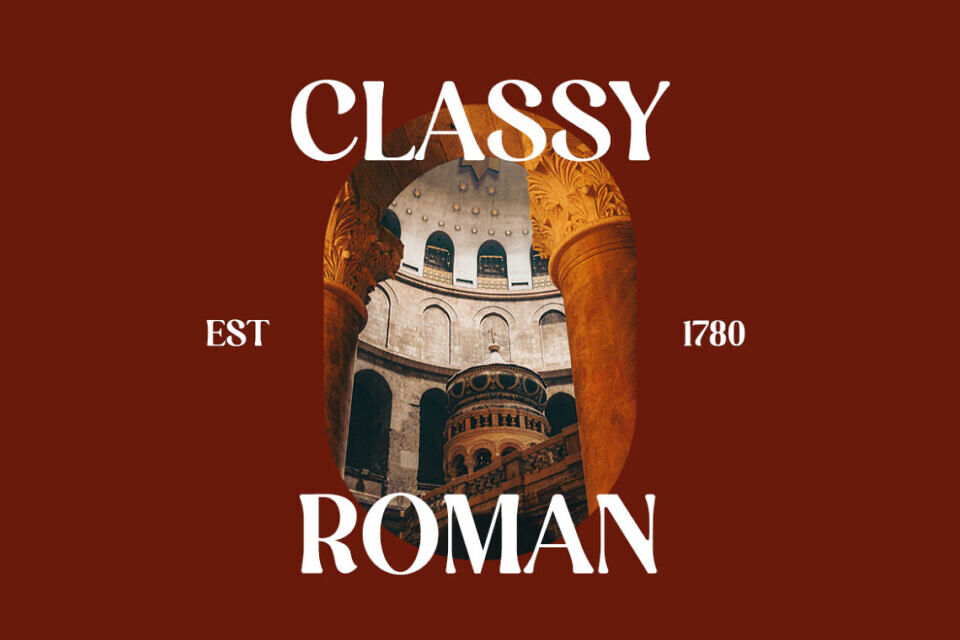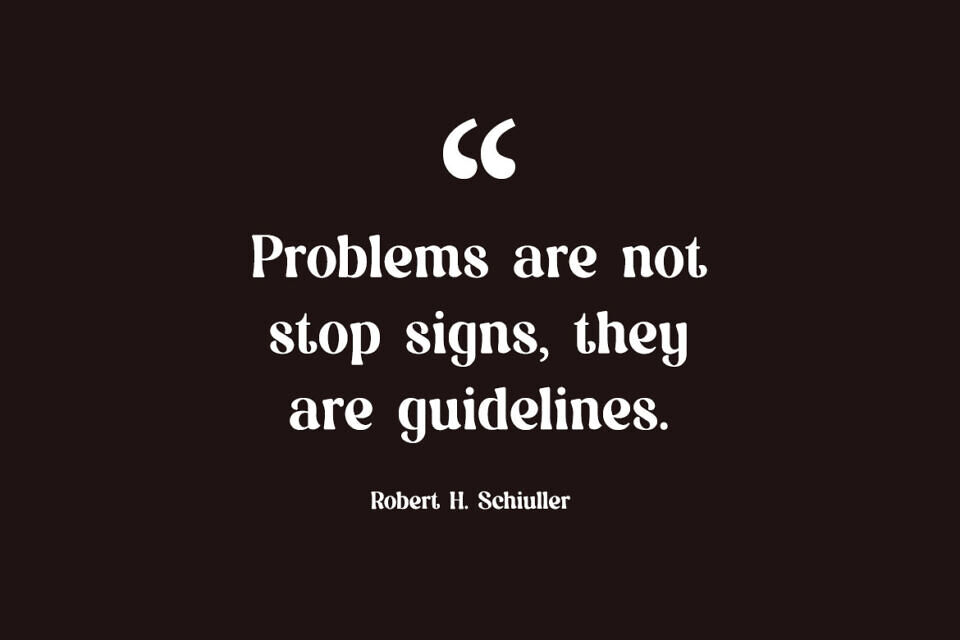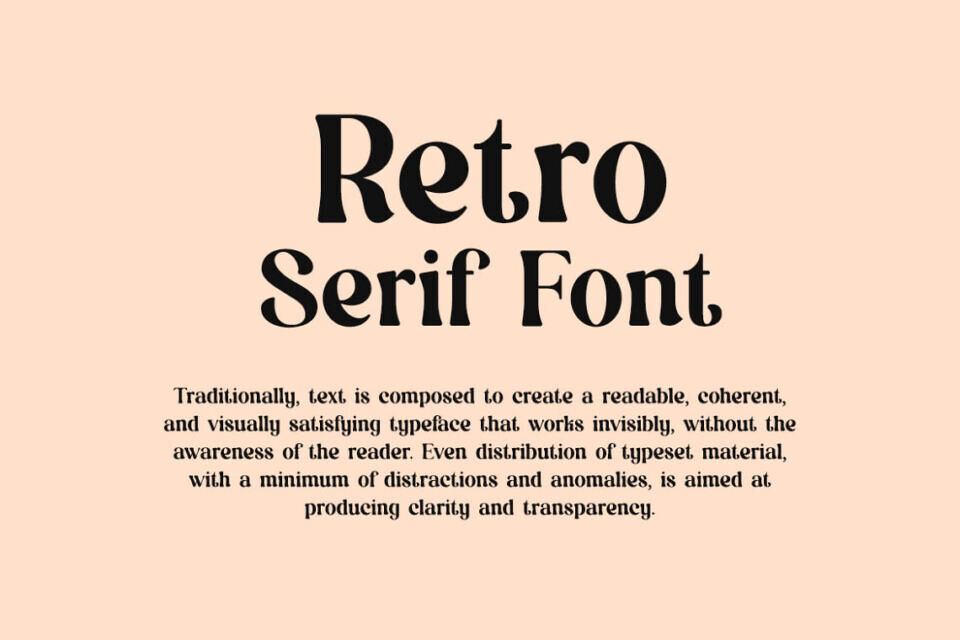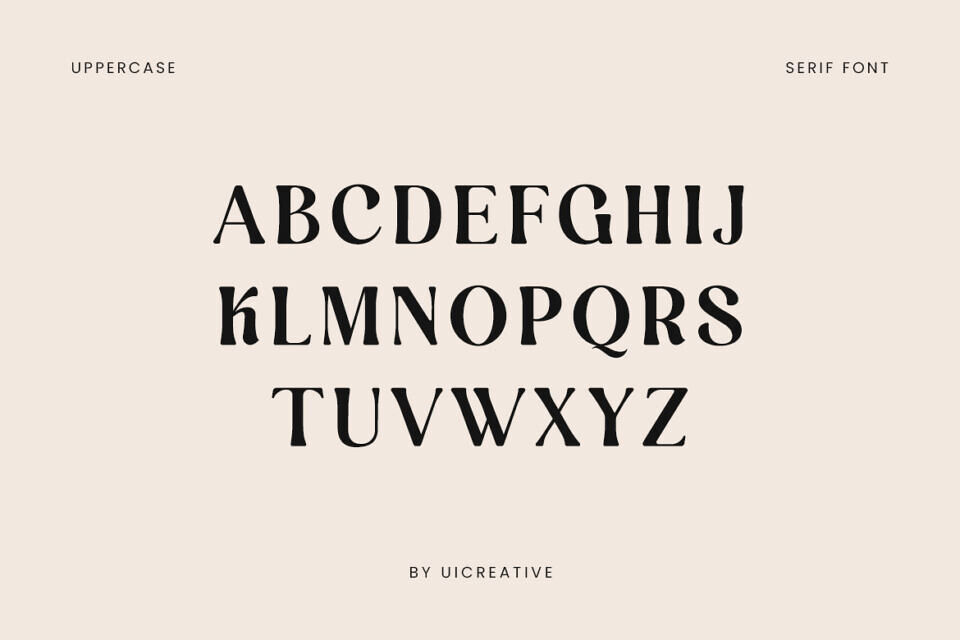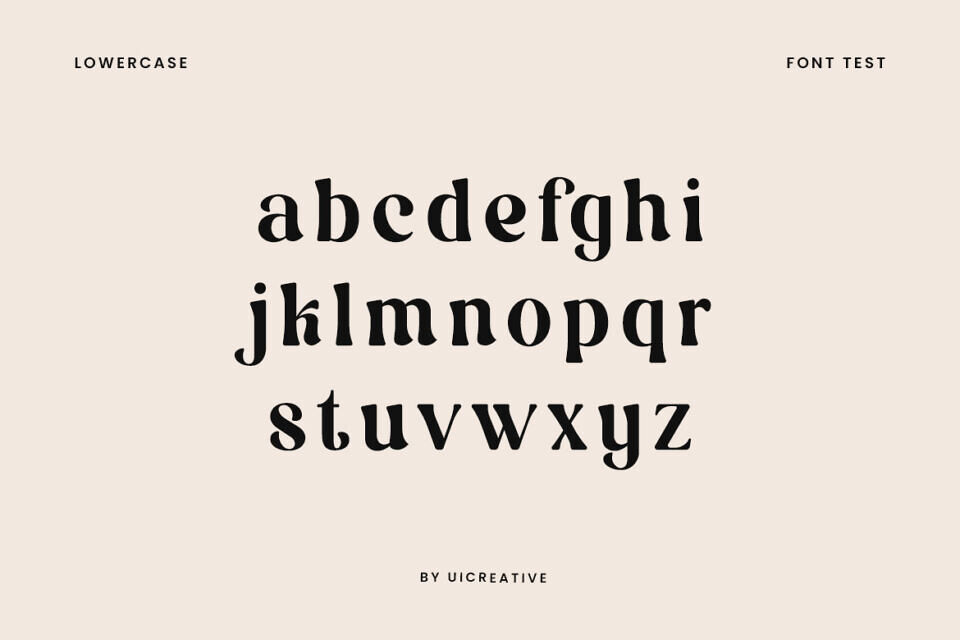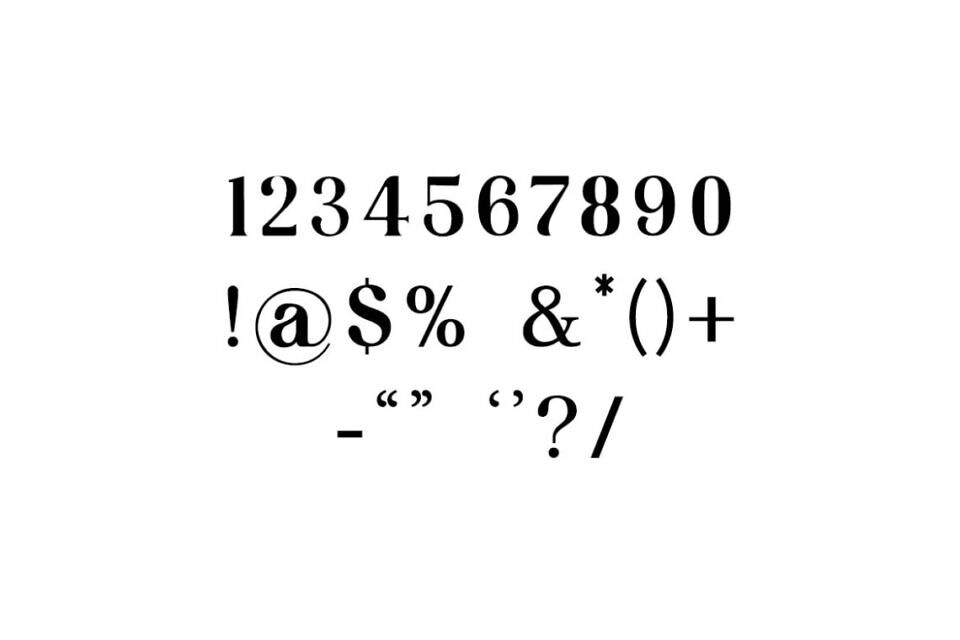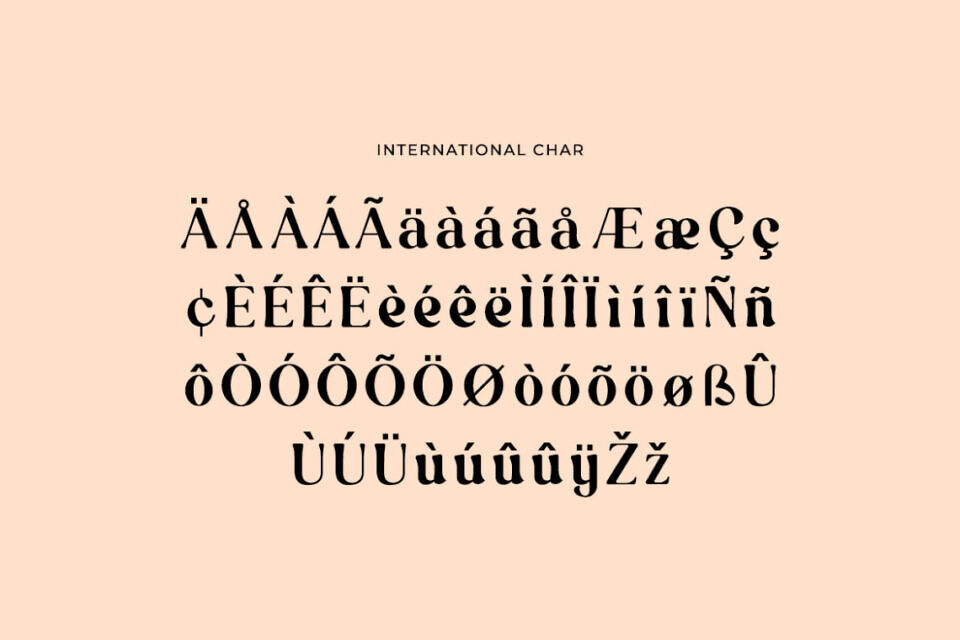
Retroactive Font
Retroactive is a Retro Serif Display Font. This modern display font feels beautiful classy, elegant, and stylish.
This font is ideally suited for a wide variety of projects, such as signature, stationery, logo, wedding, typography quotes, magazine or book covers, website headers, branding, and more. Also, fashion-related branding or editorial design displays both masculine and feminine qualities.